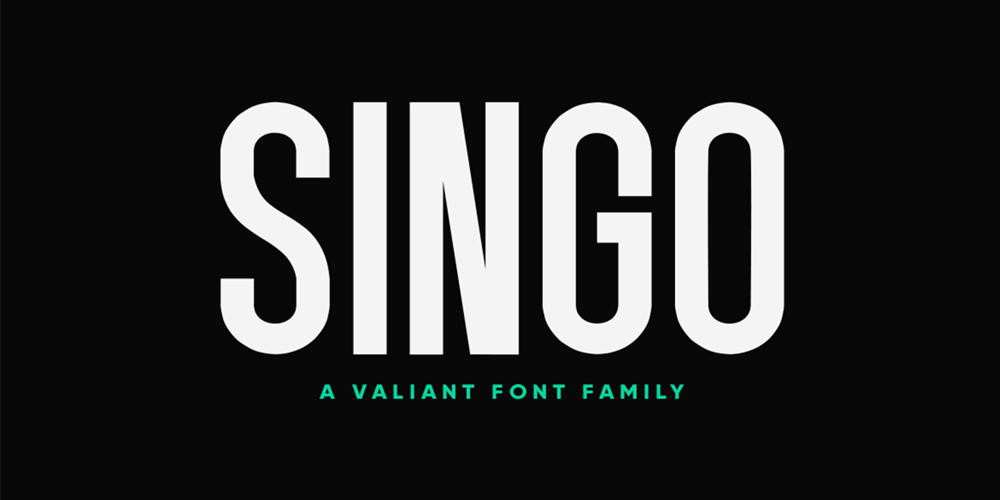
Singo Sans Font Family was designed by Ferry Ardana Putra and published by Ferry Ardana Putra. Singo Sans contains 10 styles and family package options. Singo Sans is a valiant font family and extraordinary sans serif. Singo itself literally means Lion in Indonesia, which is the the strong and gallant animal just like this typeface. It has proportion of hard lines and smooth curves. Singo works great in any branding, logos, magazines, films, posters, websites, etc.Singo features:A full set of uppercase charactersNumbers & punctuationMultilingual language supportPUA Encoded Characters2360 Total glyphs